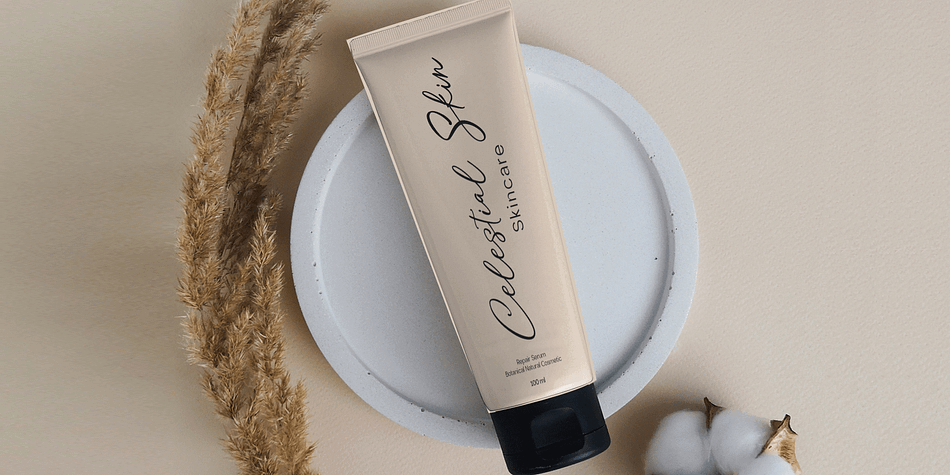
Southem Lettering
Southem Lettering is a hand drawn and script font family published by Rastype Studio.
Southem Lettering is a beautiful and cool handwritten signature font. Looks amazing on branding, wedding invitations, quotes, t-shirts, letterhead, signage, business cards and other designs.
The font includes OpenType features with alternative styles, ligatures, and multiple language support.